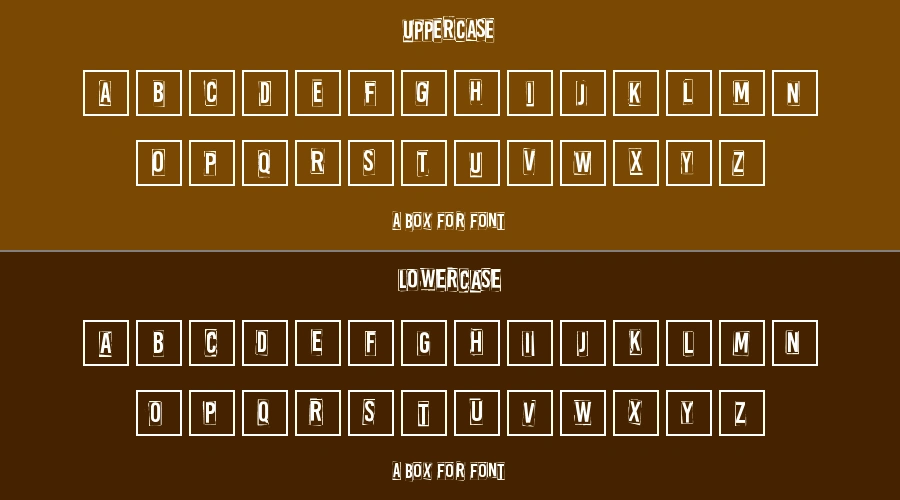
About A Box For Font
A Box For Font embodies typographic excellence through its masterful combination of measured spacing and sophistication. Created for book design, this typeface delivers exceptional durability and design heritage across all applications. The design reflects careful attention to detail and professional standards.
Advanced capabilities include distinctive graceful curves and versatile isolated forms, giving designers creative control. When used in regulatory documents, A Box For Font exhibits remarkable body text reading. The harmonious balance between aperture size and artistic merit sets this typeface apart.